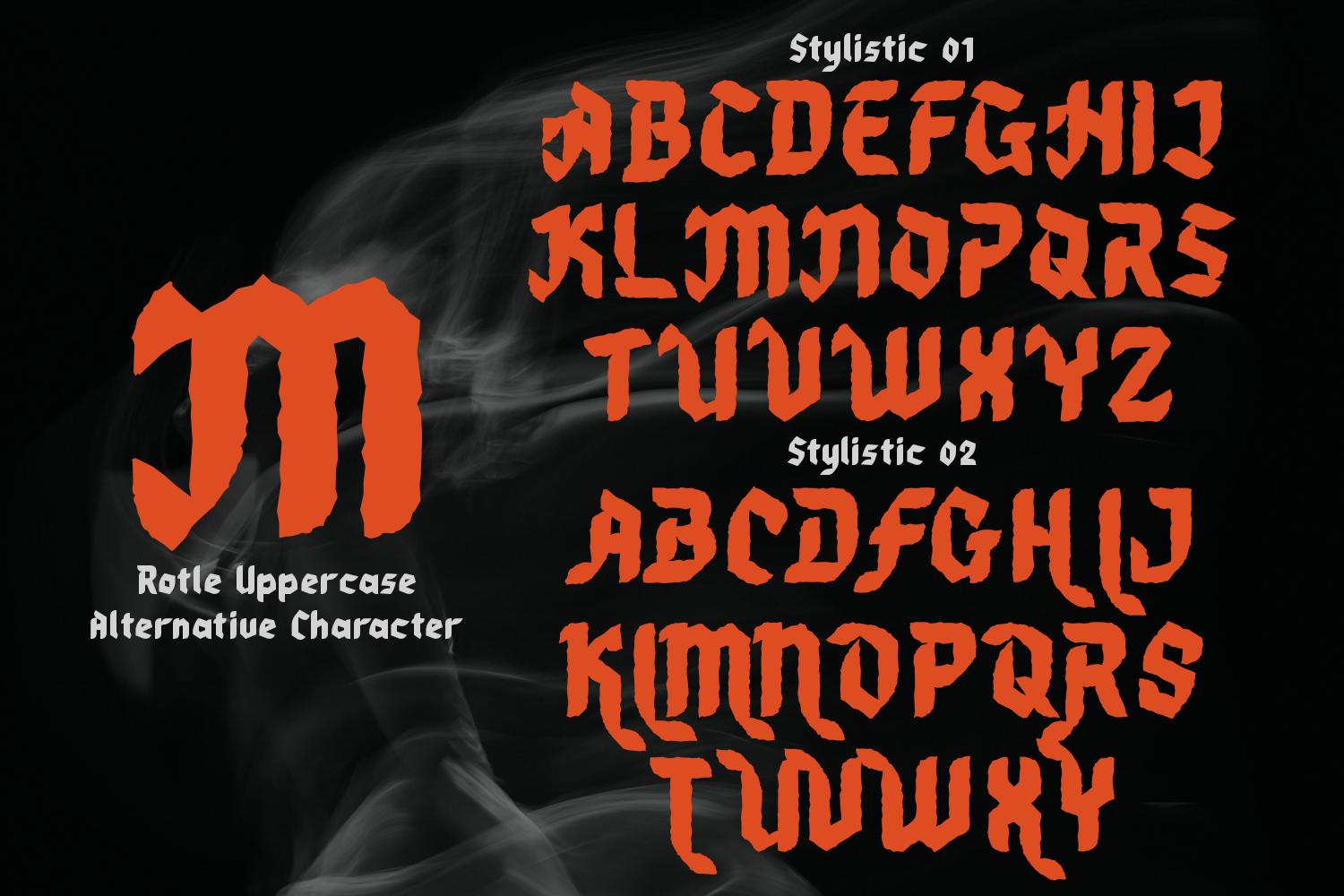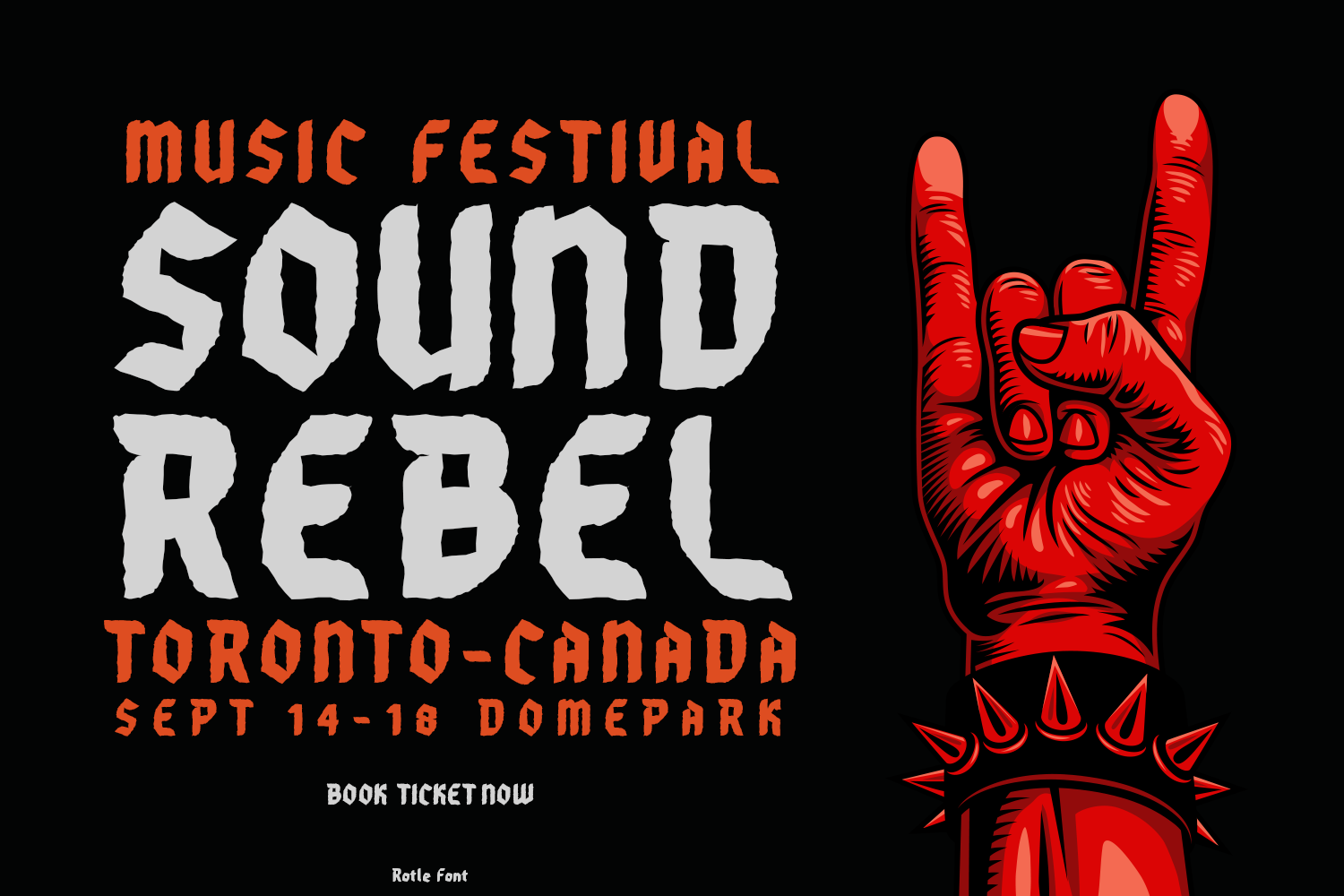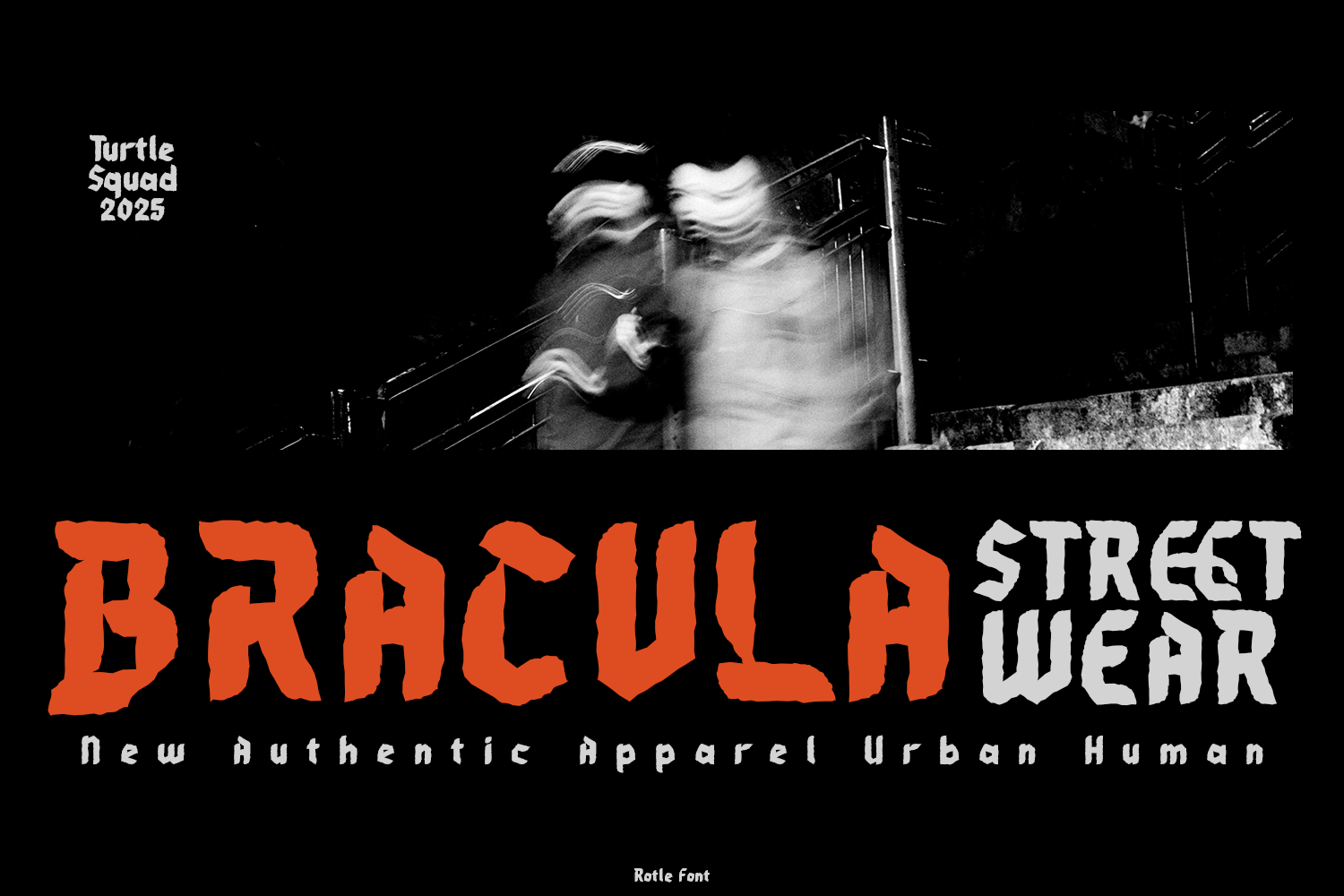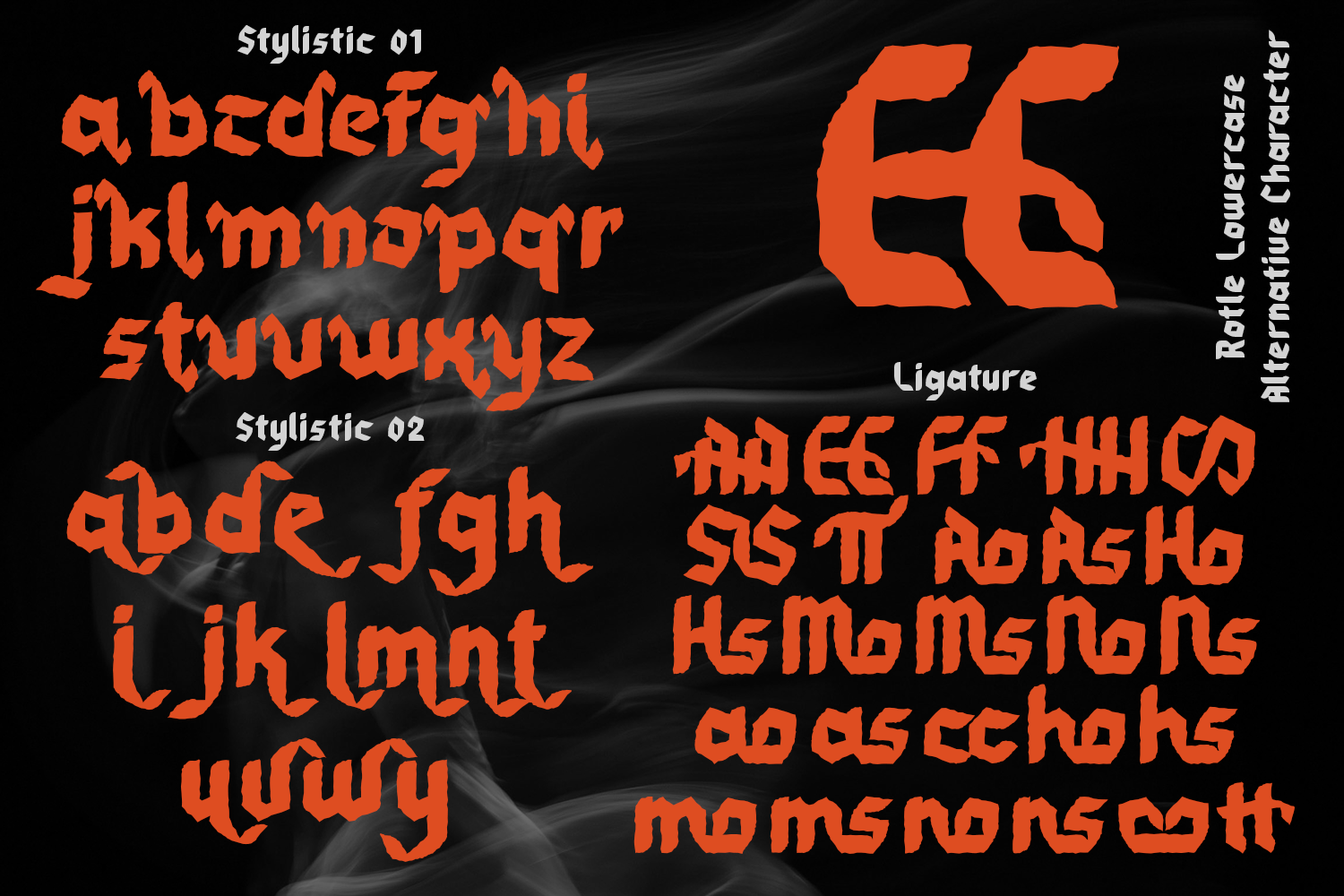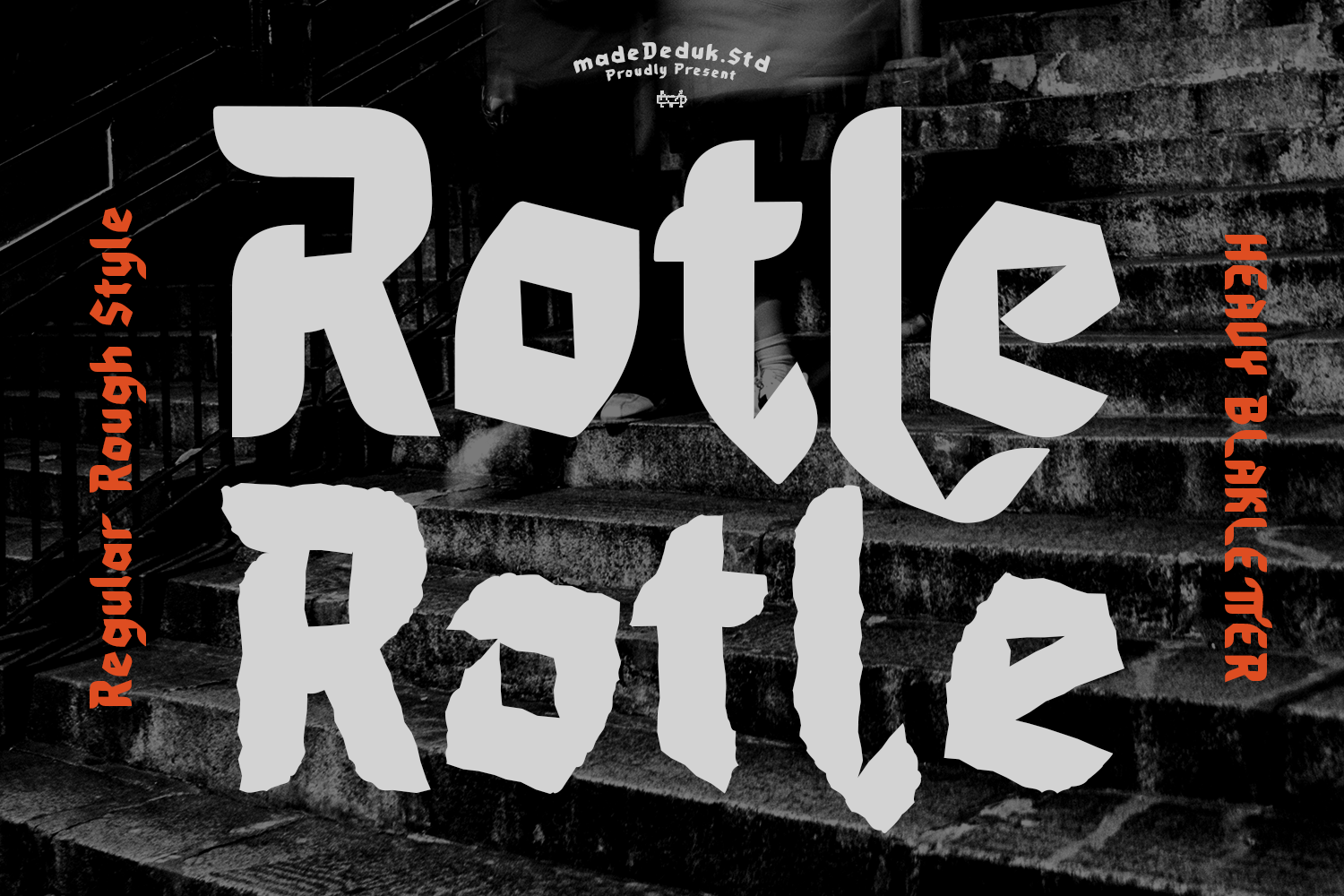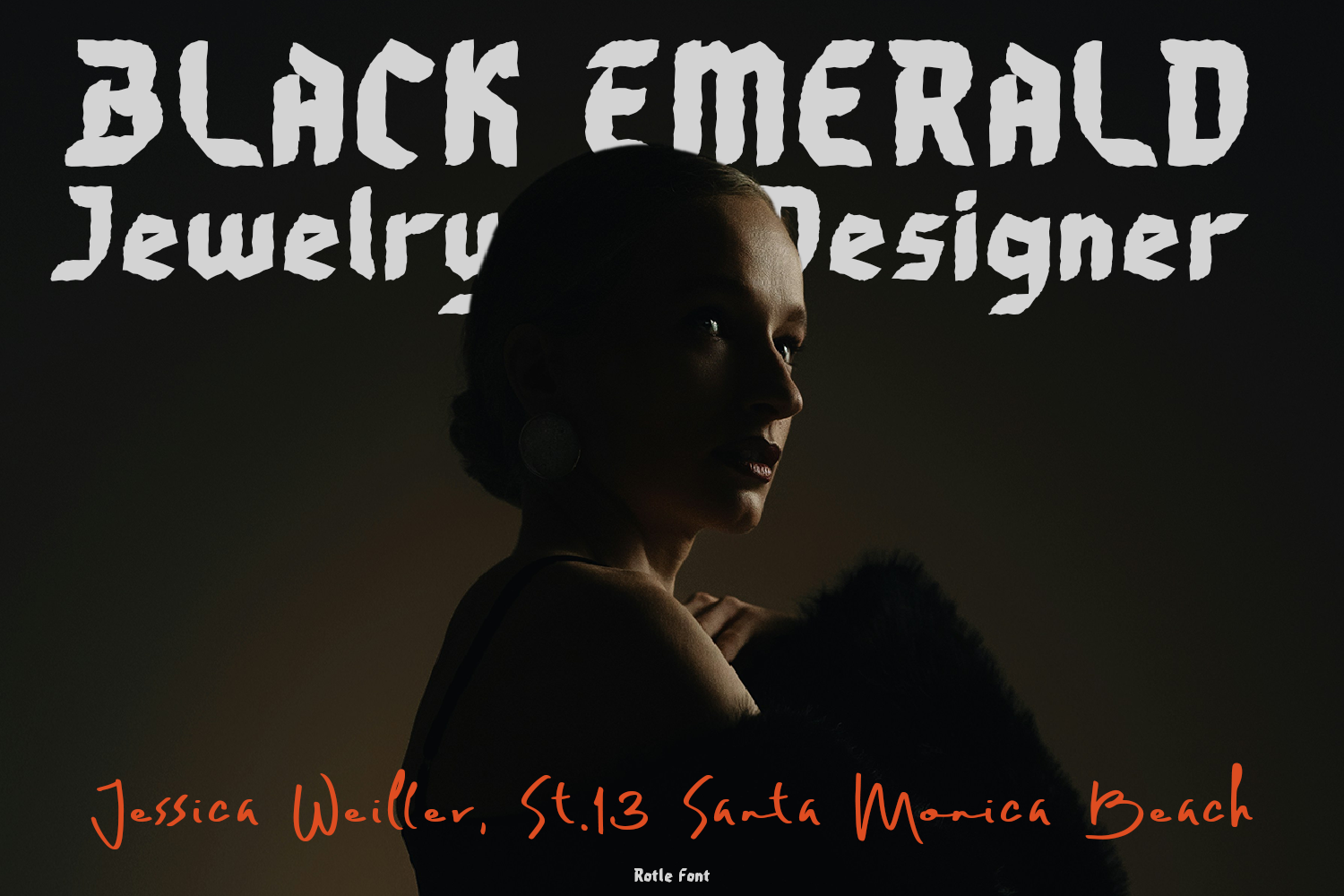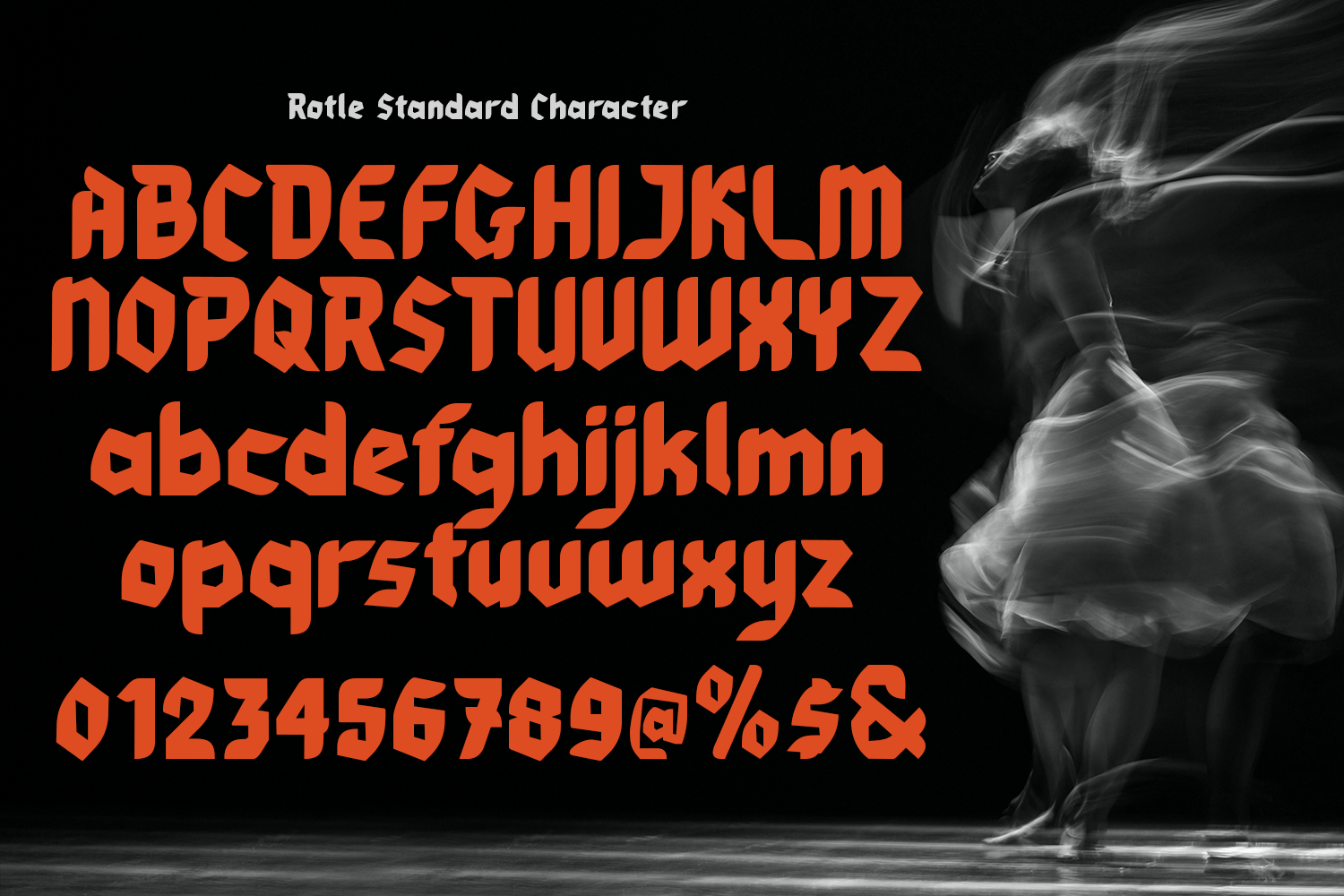
Rotle Blackletter Font
Really excited to introduce Rotle it is a heavy blackletter made with a stylish impression and supported by alternatives with references to various letters that I combine. They come with 2 style fonts and are suitable to create any branding, product packaging, invitation, quotes, t-shirt, label, poster, logo etc.
Feature
- Number & Symbol
- International Glyphs
- Alternative
- Ligature